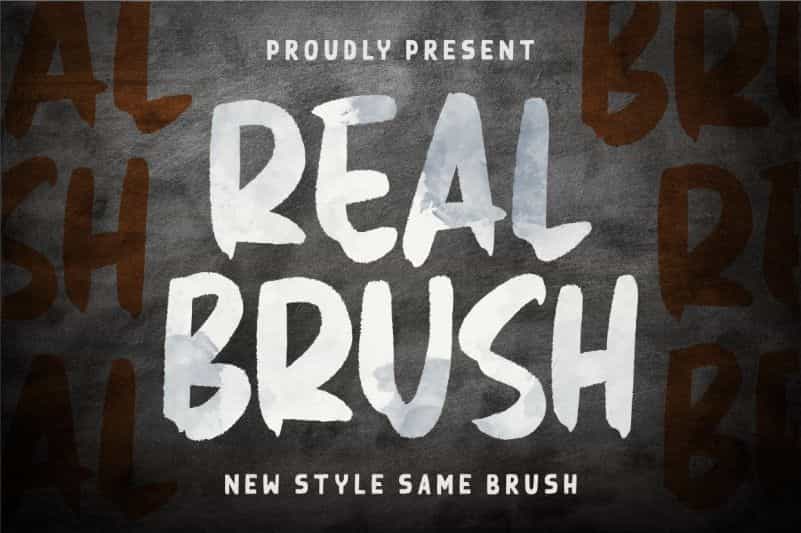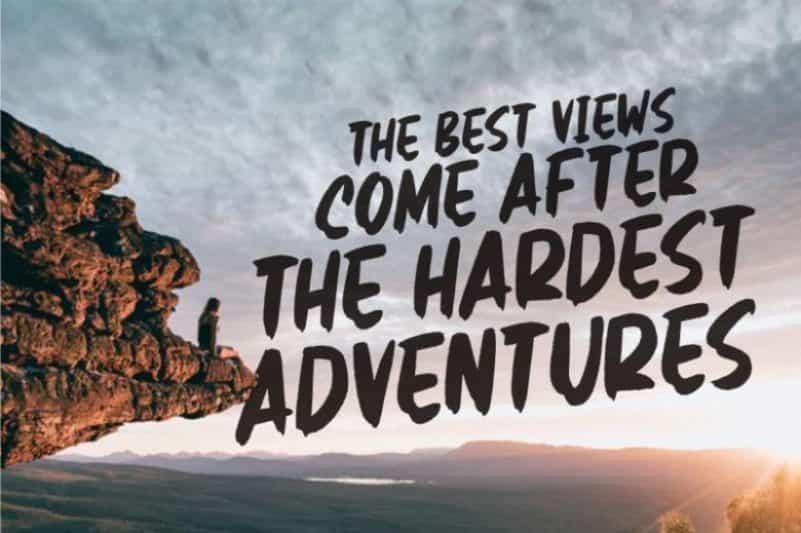
Real Font is a new handwritten font brush style with an elegant and vintage look that can be used for the title or character set. Real Font has capitals and small letters, multi-language support, figures for currency, numbers, and special signs.